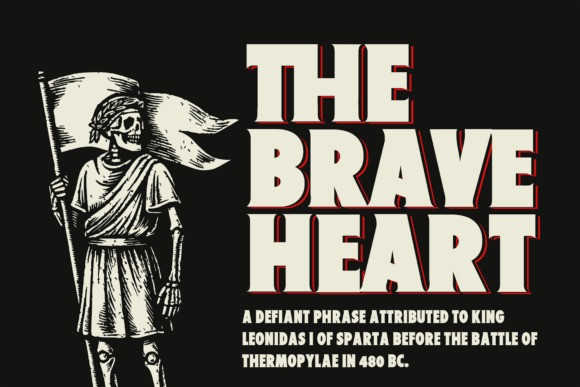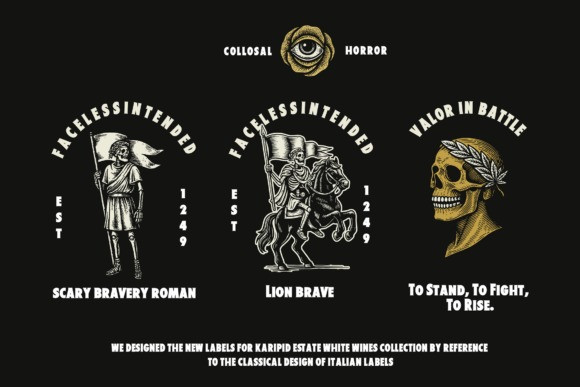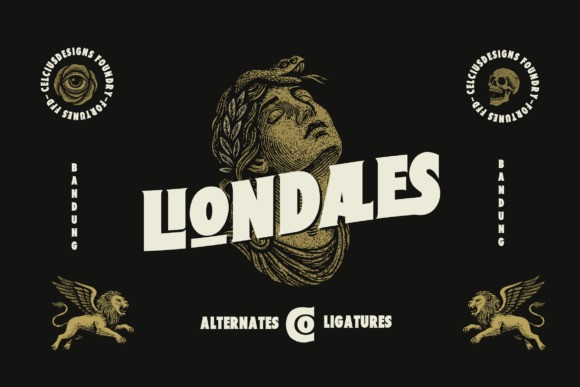
Liondaes Font
Liondaes Font, a colossal retro serif typeface inspired by ancient legends and timeless design. With its monumental letterforms and dramatic curves, Liondaes evokes the spirit of classic empires, heroic tales, and mythical icons.
Crafted to stand tall like stone-carved inscriptions, every glyph carries weight and majesty—perfect for designs that demand attention and authority. Whether you’re designing for film titles, historical branding, vintage posters, or bold editorial layouts, Liondaes brings a regal and theatrical feel to your project.